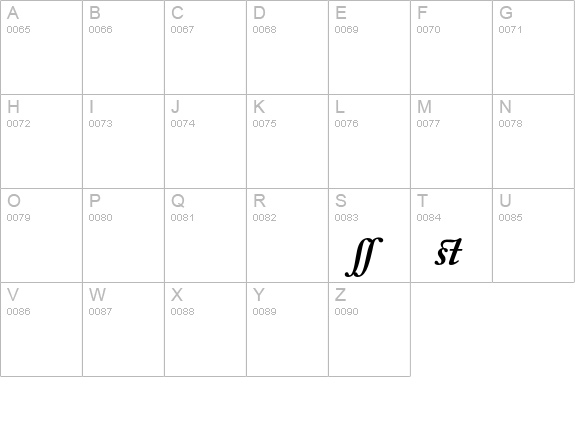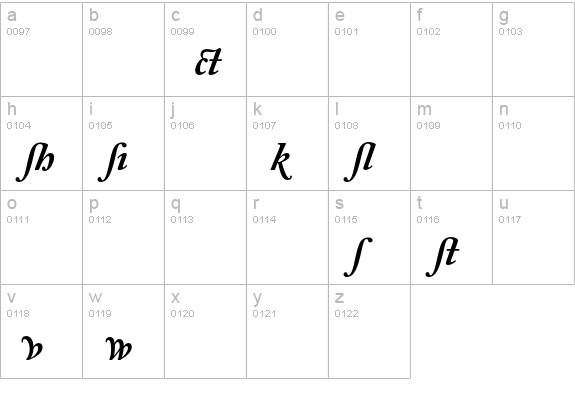
Adobe Caslon Bold Italic Alternate Font Details
Adobe Caslon Bold Italic Alternate is a strong, high-contrast, italic variant in the Adobe typeface family \xE2\x80\x94 well suited to headlines, attention-grabbing titles, and strong calls-to-action.
Adobe Caslon Bold Italic Alternate is a stunning typeface that exudes elegance and sophistication. Its bold and italicized design adds a touch of flair and style to any project, making it perfect for eye-catching headings or emphasis. The alternate characters provide a unique and artistic twist to your typography, allowing for creative and dynamic layouts. What sets Adobe Caslon Bold Italic Alternate apart is that it is not only a premium font but also available for free download at FontsMarket.com. This means that you can enjoy the beauty and versatility of this font without any cost, making it a valuable addition to your design toolkit. Whether you're working on a branding project, publication, or any other design endeavor, Adobe Caslon Bold Italic Alternate is sure to enhance your work with its timeless appeal and artistic flair. Download it today and elevate your designs with this exceptional typeface.